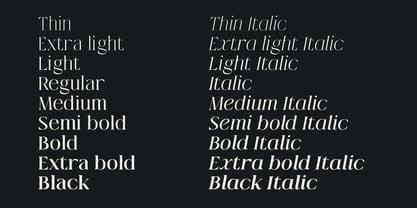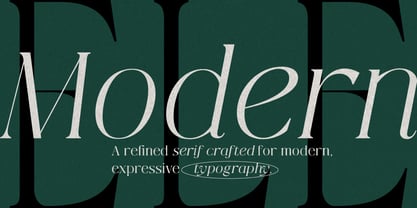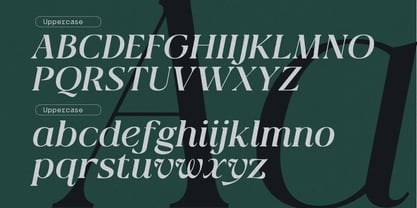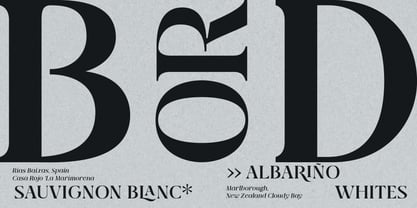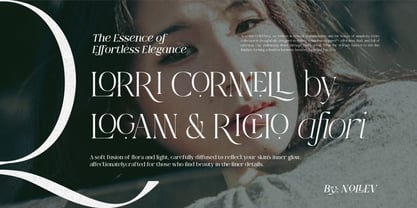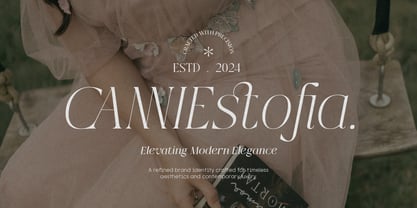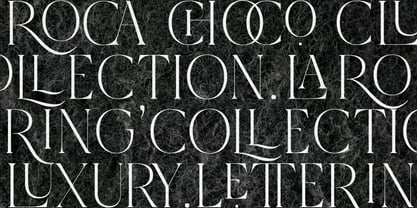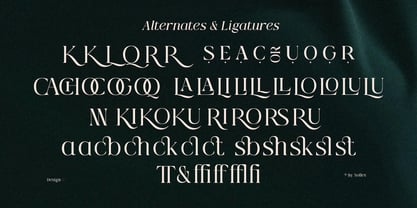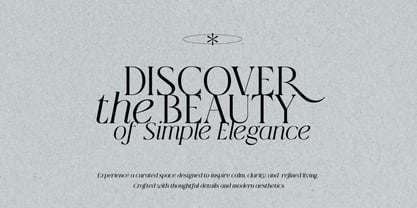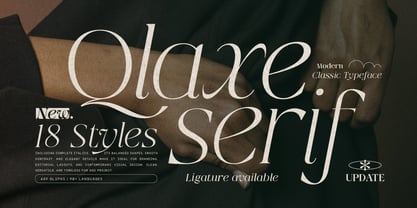
Qlaxe Serif
by Nollev
The Qlaxe Serif Font Family was designed by Akhmad Hidayat and published by Nollev. Qlaxe Serif contains 19 styles and family package options.
Qlaxe Serif is a classic–modern serif typeface that blends timeless elegance with confident contemporary style. Designed with expressive letterforms, refined contrast, and distinctive ligatures, Qlaxe brings sophistication and personality to any project — from branding and packaging to editorial and digital design. With 18 styles (9 weights + matching italics), it offers full flexibility and consistency across your creative work. Clean details and sharp serifs make Qlaxe a perfect choice for designers seeking a polished yet characterful serif family.